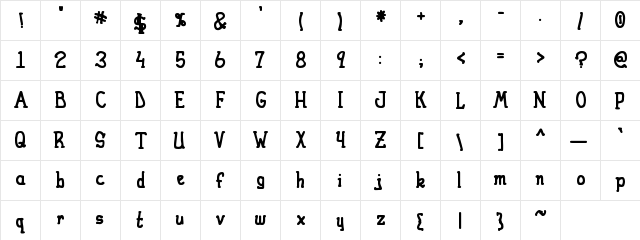
Heirany Bold-Marker Regular
| Designer | S. John Ross |
Design Context for Heirany Bold-Marker Typeface
Heirany Bold-Marker is a composed and adaptable typeface that performs quietly and consistently across a wide range of design contexts. The heavy weight commands attention and anchors typographic hierarchies.